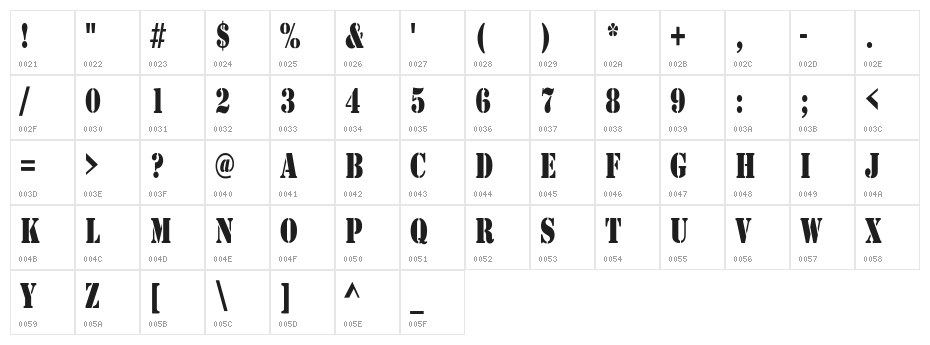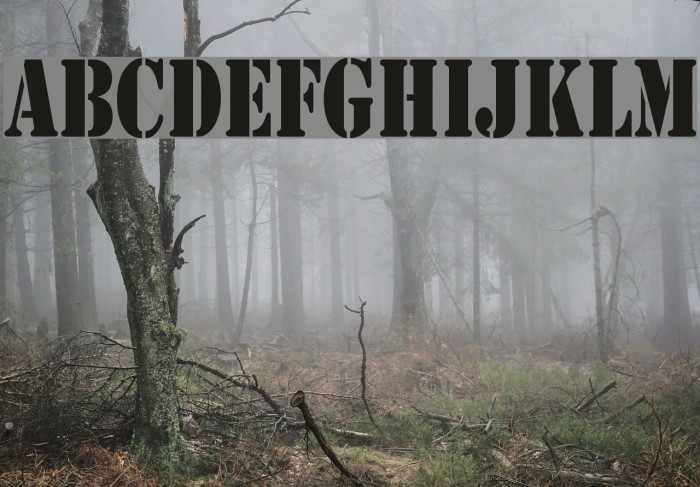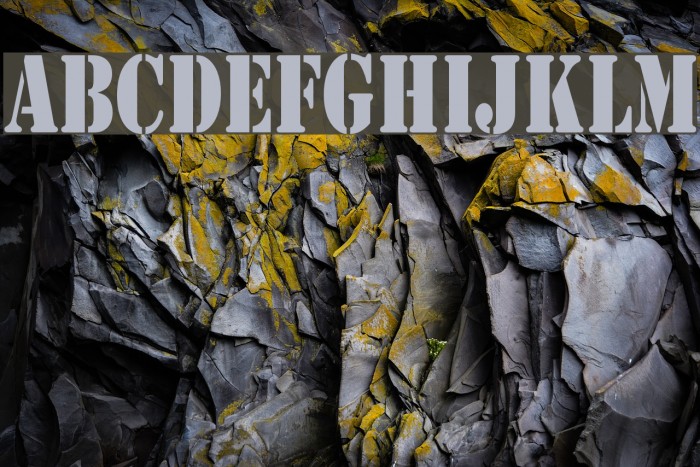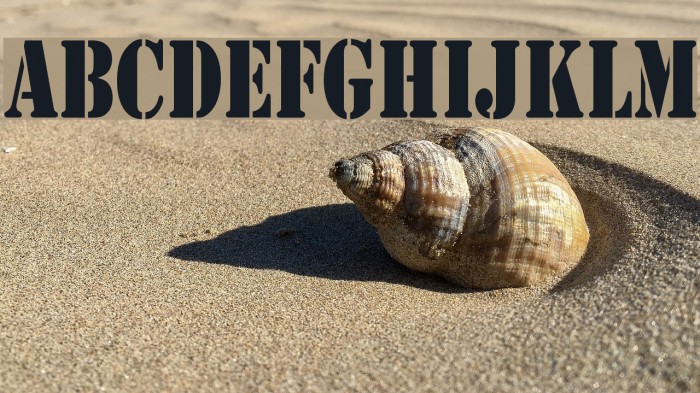
Army Condensed Font
Army Condensed Description
This font features a bold, condensed style with a strong, authoritative presence. The characters are designed with a stencil-like appearance, characterized by thick, blocky serifs and high contrast between the thick and thin strokes. The uppercase letters are particularly striking, with sharp angles and a robust structure that commands attention. The numerals and special characters maintain the same boldness, ensuring consistency across all text. This font's design is reminiscent of military or industrial themes, making it ideal for projects that require a sense of strength and reliability.
| Proposed Projects | Ideal for military-themed designs, posters, signage, and branding that requires a strong, authoritative look. |